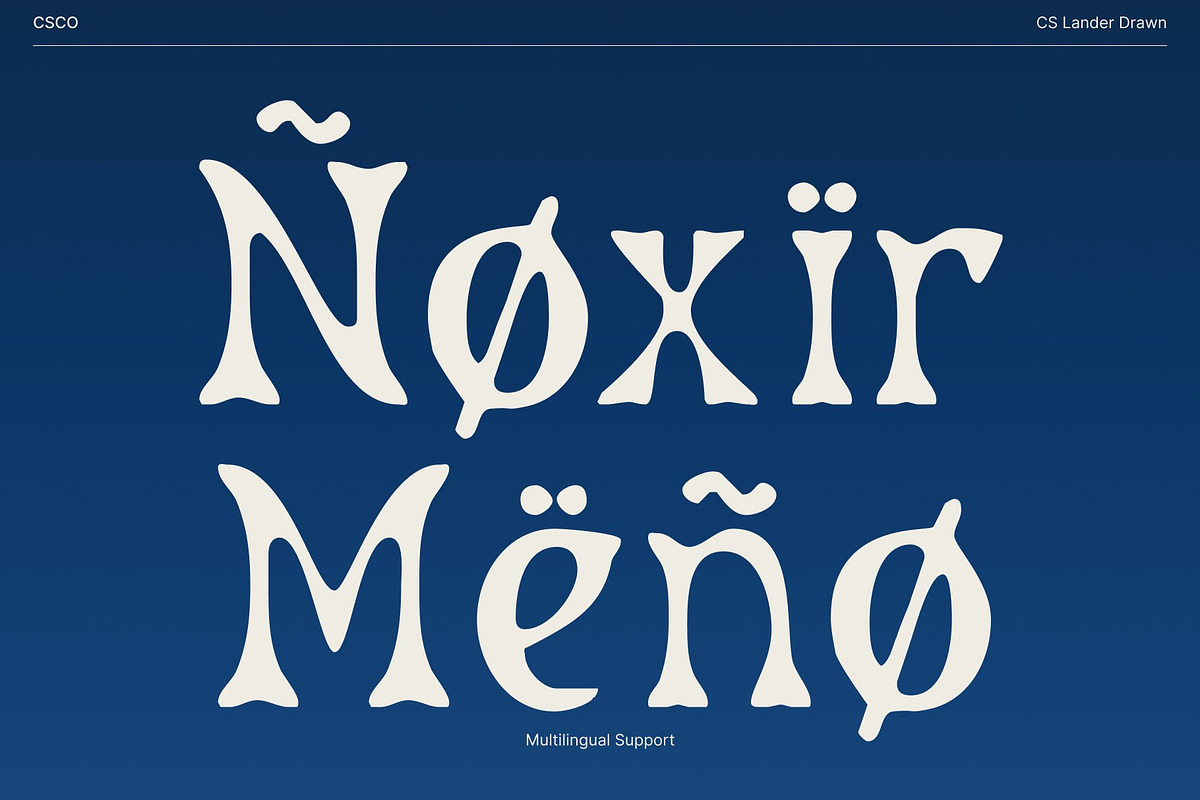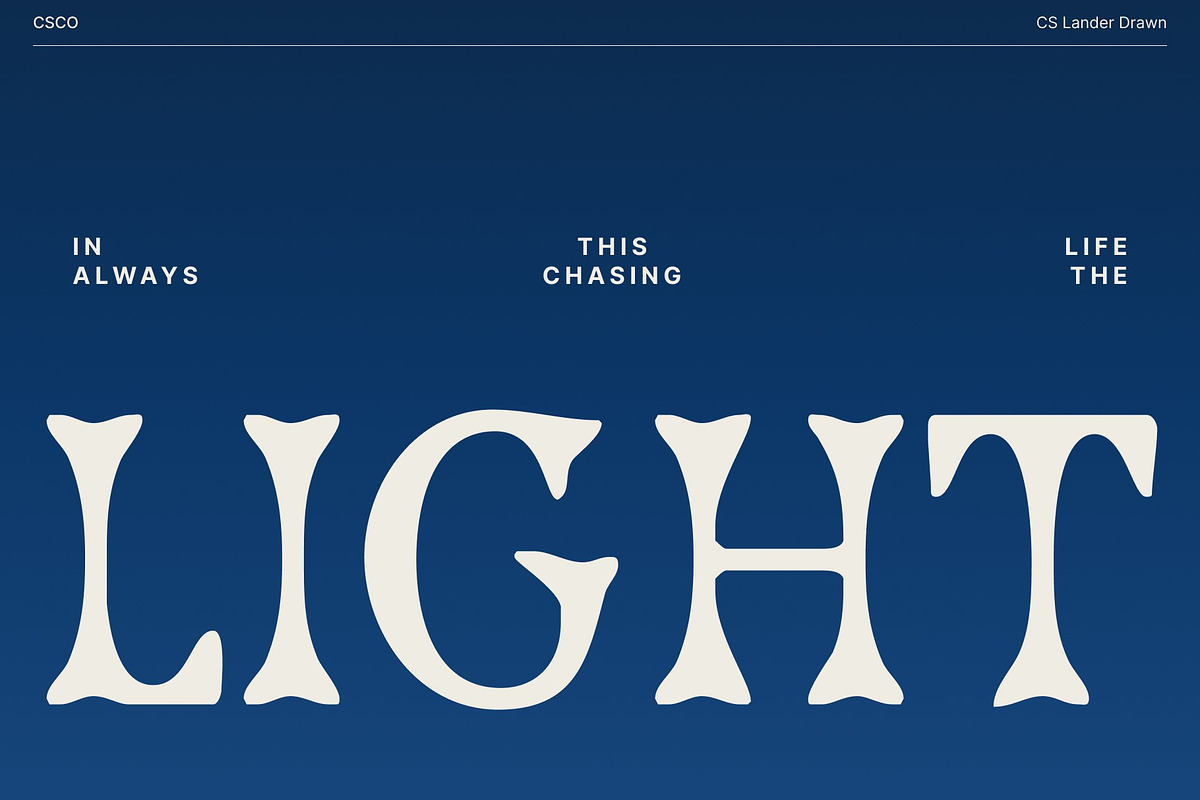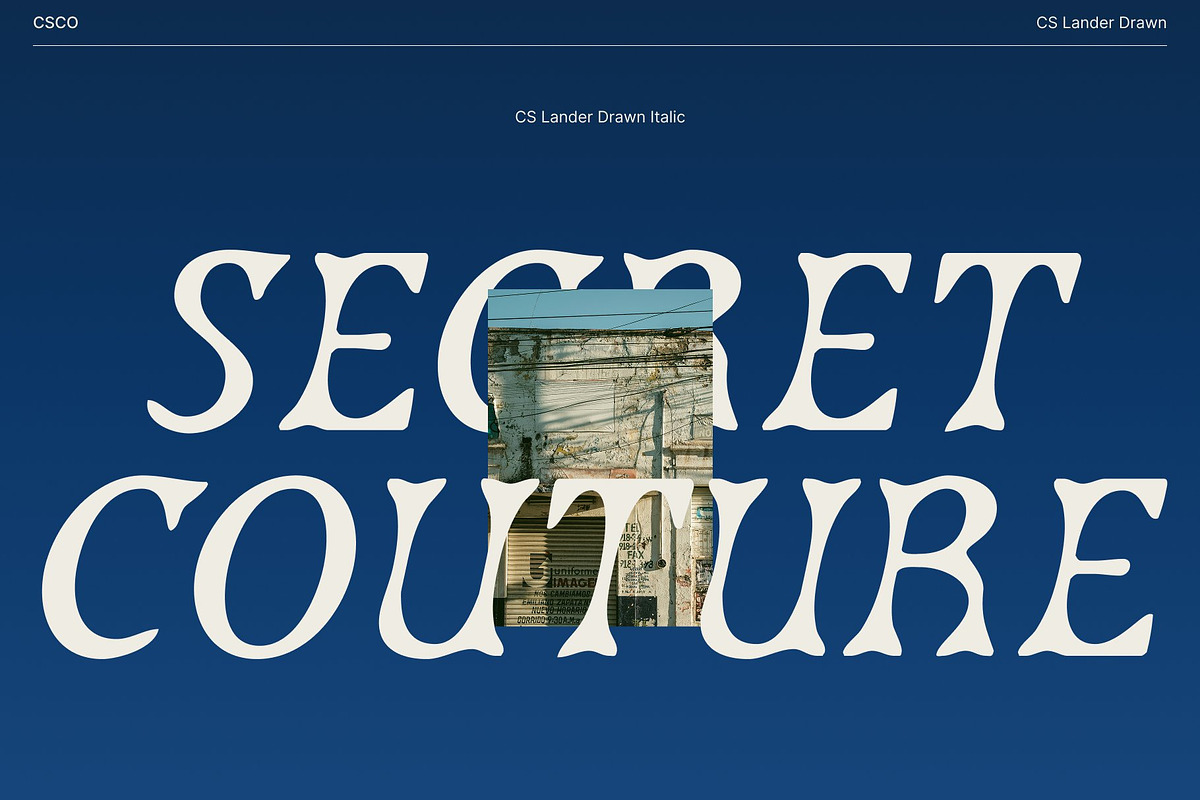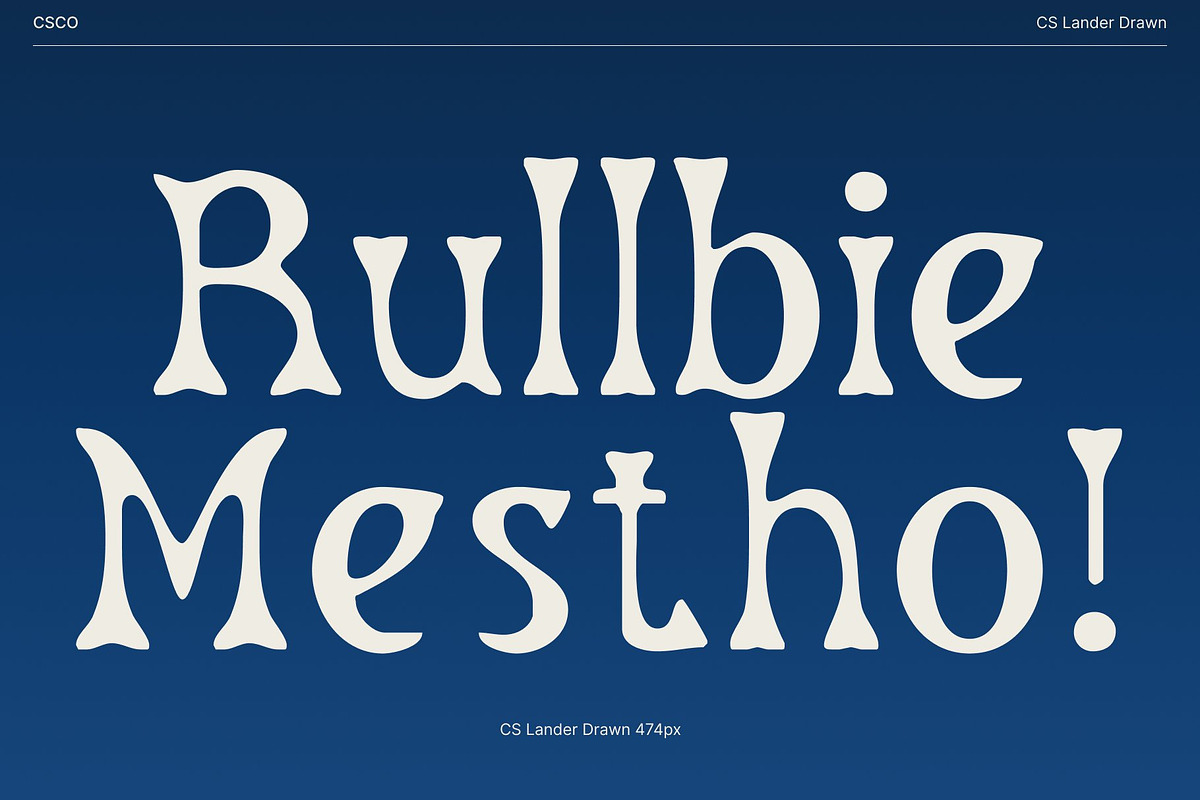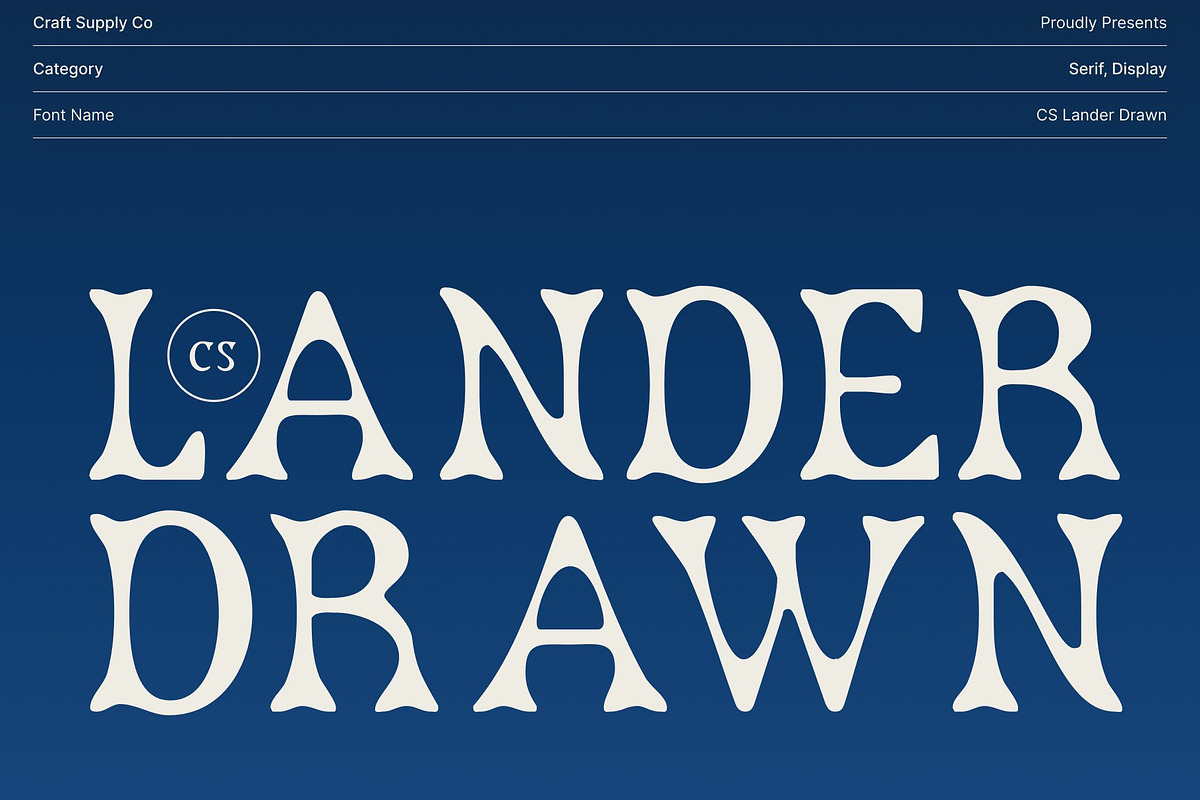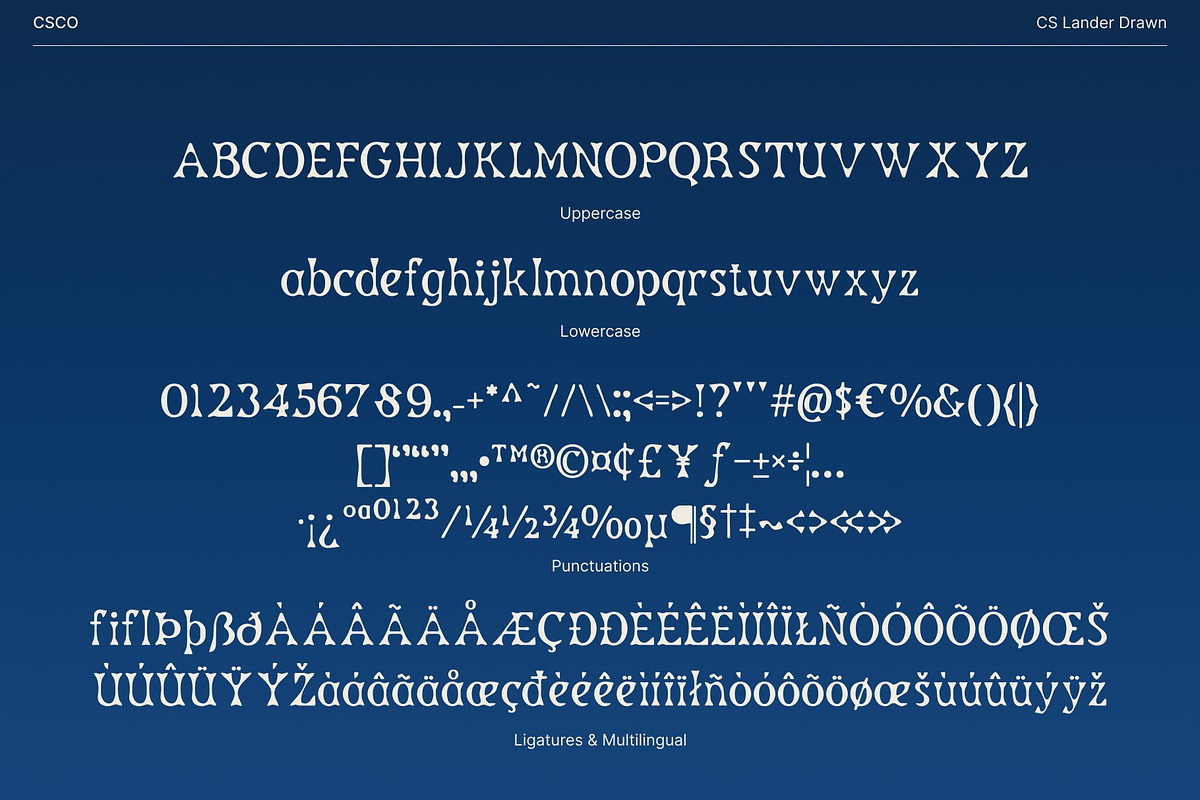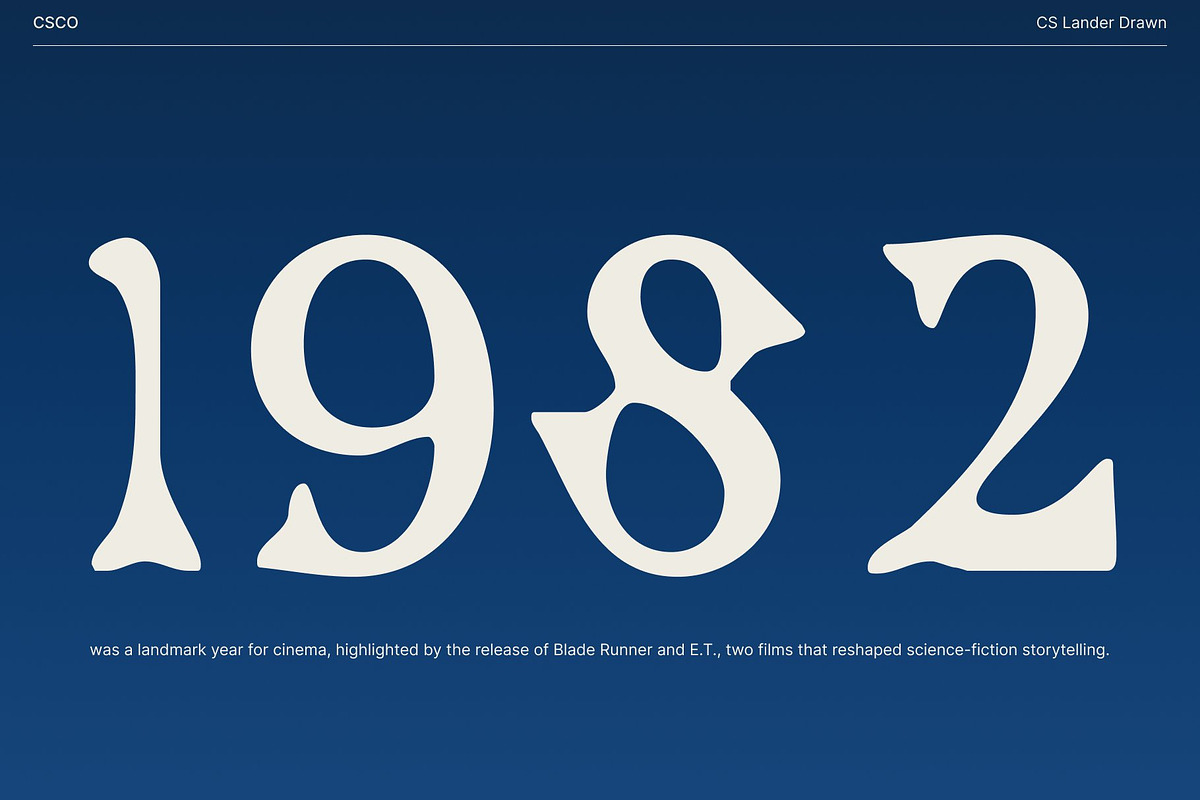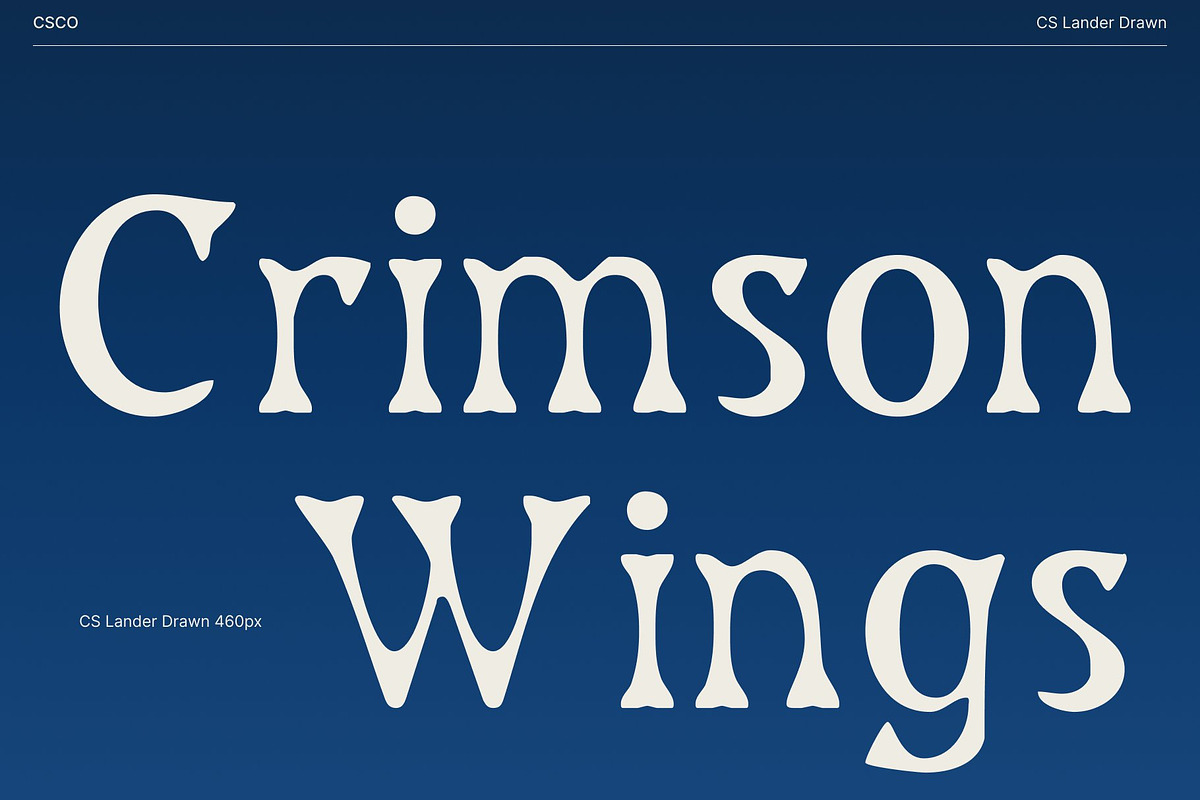
CS Lander Drawn
CS Lander Drawn – Vintage Mexican Tuscan Serif with Cultural
A Typeface Rooted in Cultural Heritage and Decorative Tradition This is a distinctive display font that beautifully merges vintage Mexican design influences with the timeless elegance of classic Tuscan serif typography. Every curve, flare, and decorative serif reflects the artistry of traditional Mexican visual culture, giving the typeface a rich historical presence.
Tuscan Serif Forms Enhanced with a Hand-Drawn Character The elegant Tuscan structure recognized by its split serifs and ornate shapes is reimagined with a drawn, handmade effect that gives the font warmth, texture, and individuality. This hand-rendered detailing adds softness to the decorative forms, making each letter feel crafted rather than constructed.
Vintage Mexican Inspiration for Historical and Thematic Designs Rich with cultural motifs and vintage flair, this font captures the spirit of traditional Mexican signage, folk art, and ornamental typography. Its expressive shapes convey a sense of history and storytelling, making it ideal for thematic layouts that aim to feel rooted in tradition.
Perfect for Branding, Posters, Packaging, and Cultural Campaigns This font thrives in display settings where its bold personality can shine. Use it for branding, posters, packaging, editorial headers, or themed visual campaigns to create a dramatic and memorable impression. Its combination of handcrafted texture, Tuscan elegance, and Mexican-inspired artistry makes it a standout choice for designers.